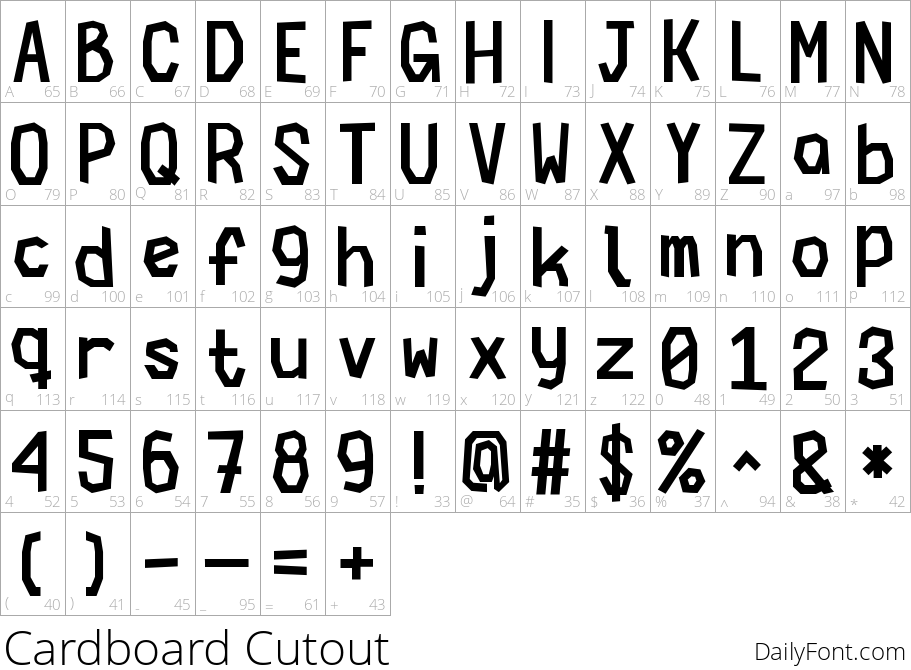
Cardboard Cutout
Cardboard Cutout is a playful font crafted entirely from rectangles and boolean operations. Its unique design brings a fun and creative touch to any project, making it perfect for casual branding, invitations, and eye-catching headlines.